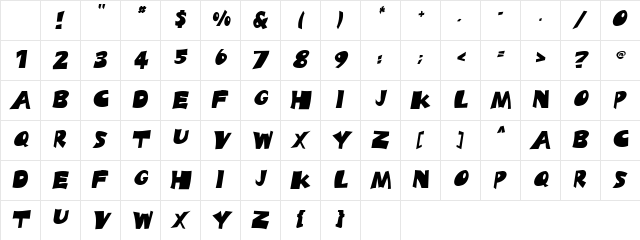
Honey is a composed and adaptable typeface that performs quietly and consistently across a wide range of design contexts. The slanted form adds forward momentum and visual energy.